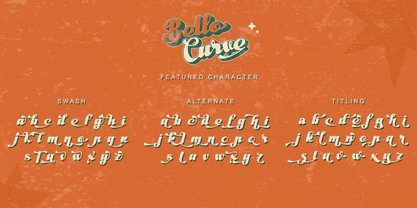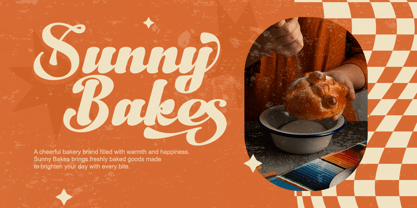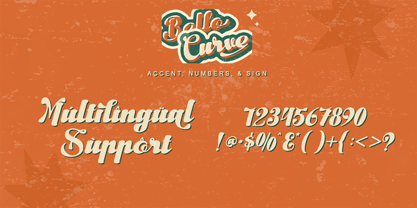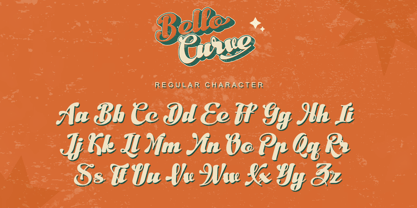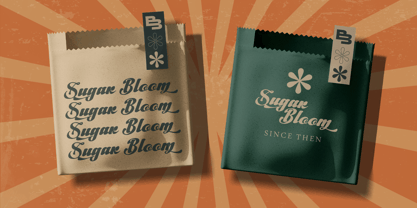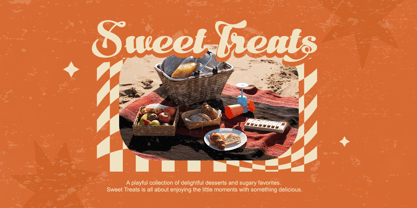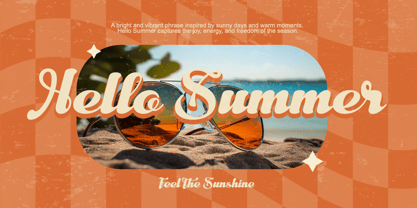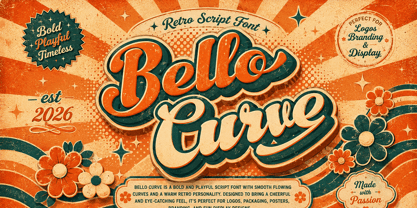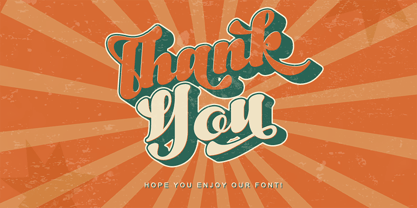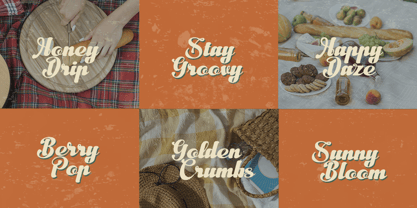
Bello Curve
Bello Curve is a bold and playful retro script font inspired by vintage advertising, classic packaging, hand-painted signs, and the cheerful visual style of the 1960s and 1970s.
Designed with smooth flowing curves, confident strokes, and a warm nostalgic personality, Bello Curve brings instant character to logos, packaging, posters, and promotional designs. Its expressive script style creates a handcrafted appearance while remaining polished, stylish, and highly memorable.
Bello Curve is ideal for designers who want to create friendly, energetic, and eye-catching typography. Use it to build retro wordmarks, food and beverage labels, restaurant identities, product packaging, event posters, album artwork, social media graphics, and vintage-inspired branding.